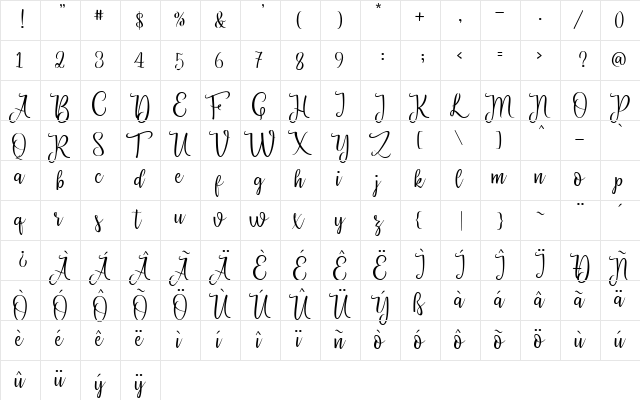
Priscilla Script Regular
Design Context for Priscilla Script Typeface
Priscilla Script brings a calligraphic fluidity to the page — its connecting strokes and expressive curves give it an unmistakably human quality.
Font Pairing: Combine Priscilla Script with a simple geometric sans for maximum contrast — the tension between flowing curves and clean structure is a classic typographic pairing.
Pro Tip: Use Priscilla Script for short runs of text — names, titles, or taglines. Extended body copy in script faces tires the eye quickly.